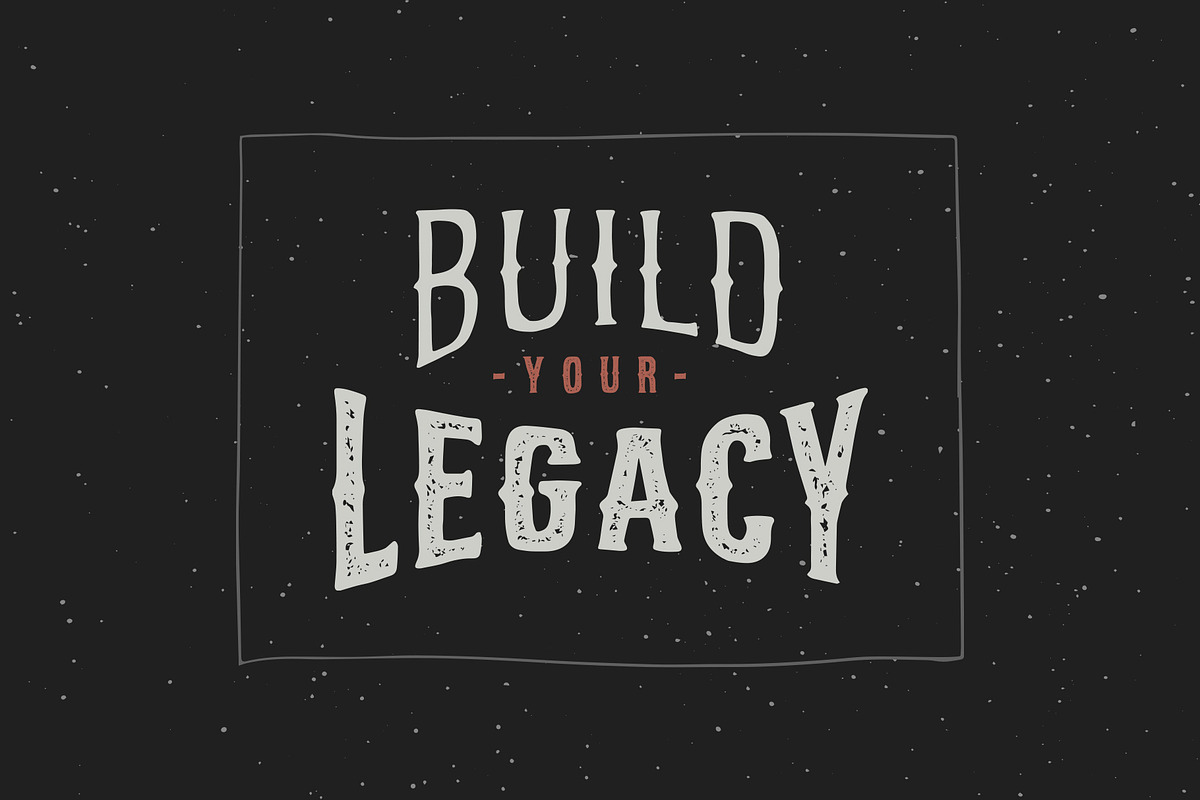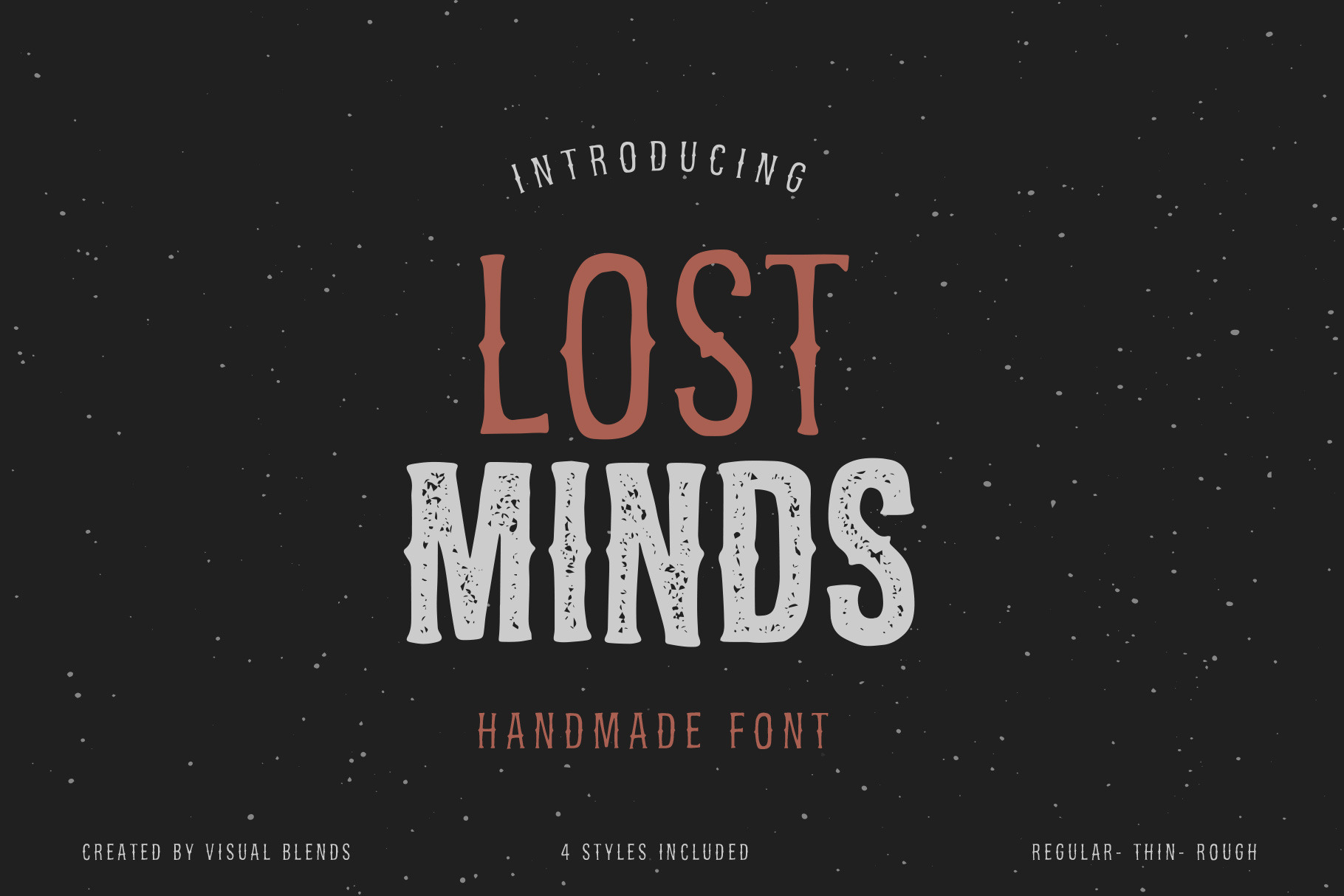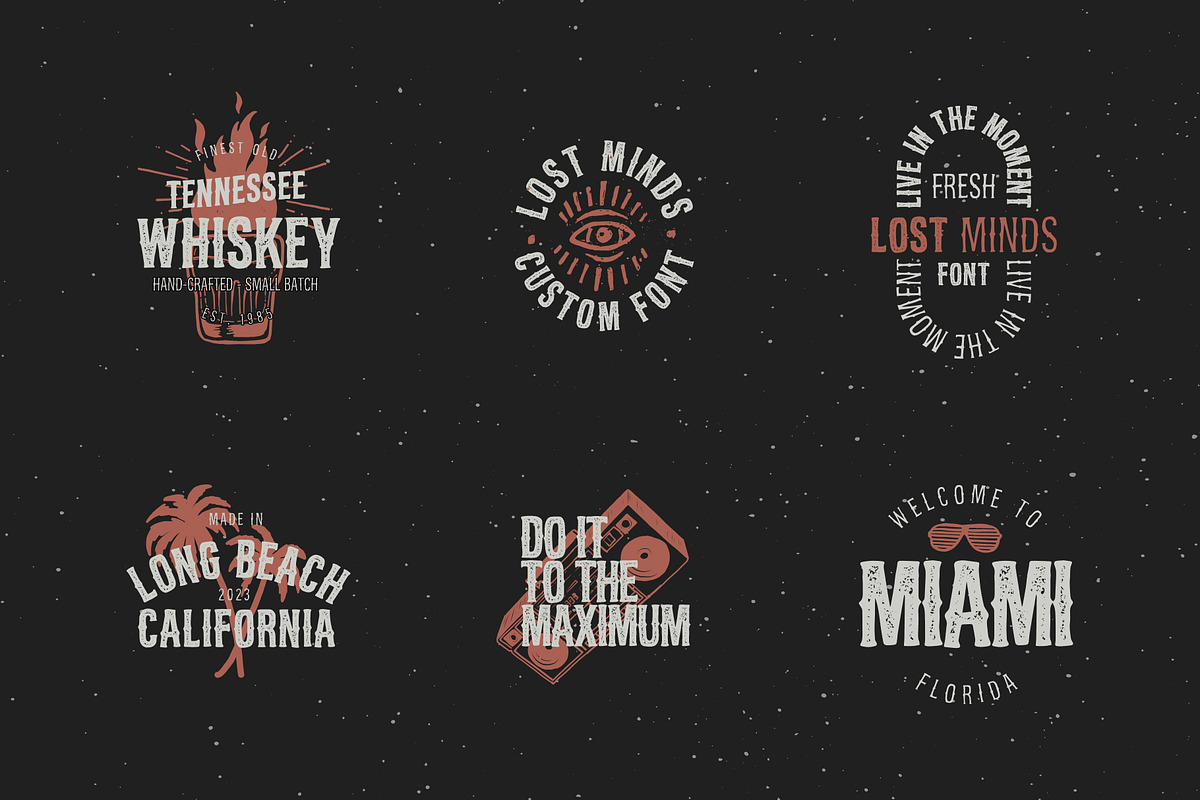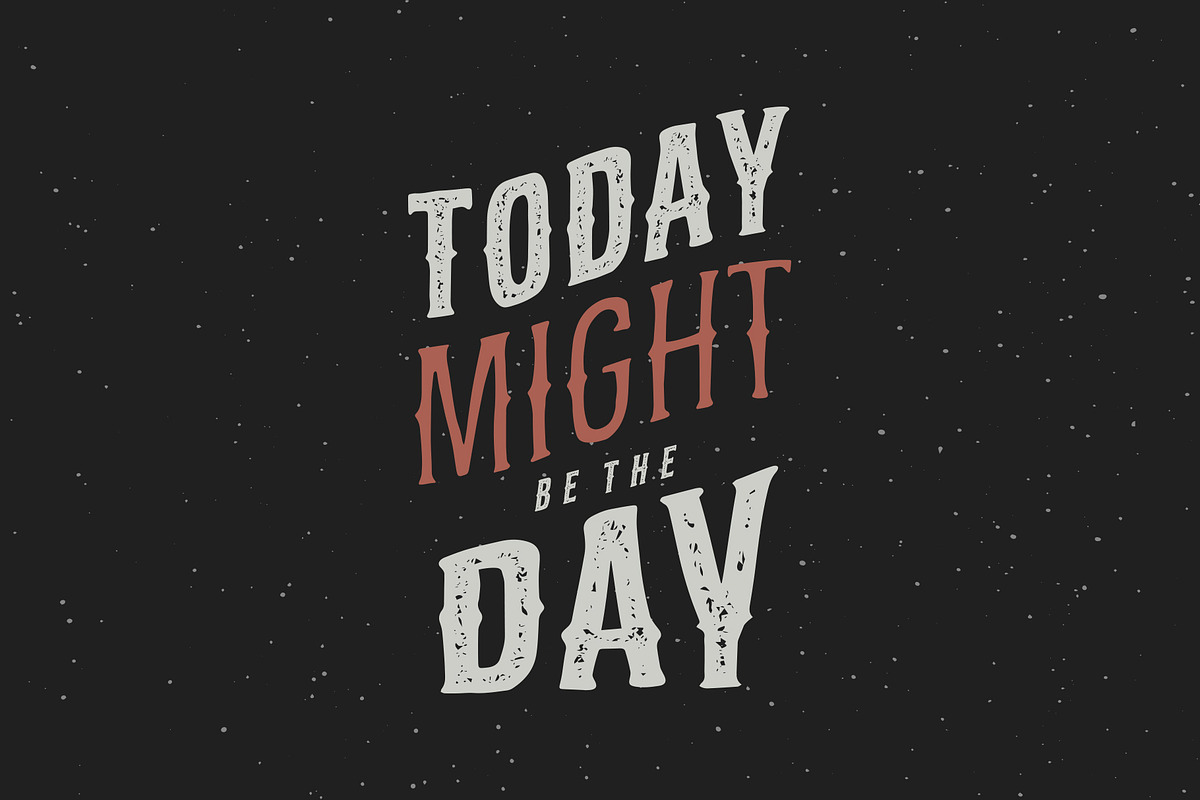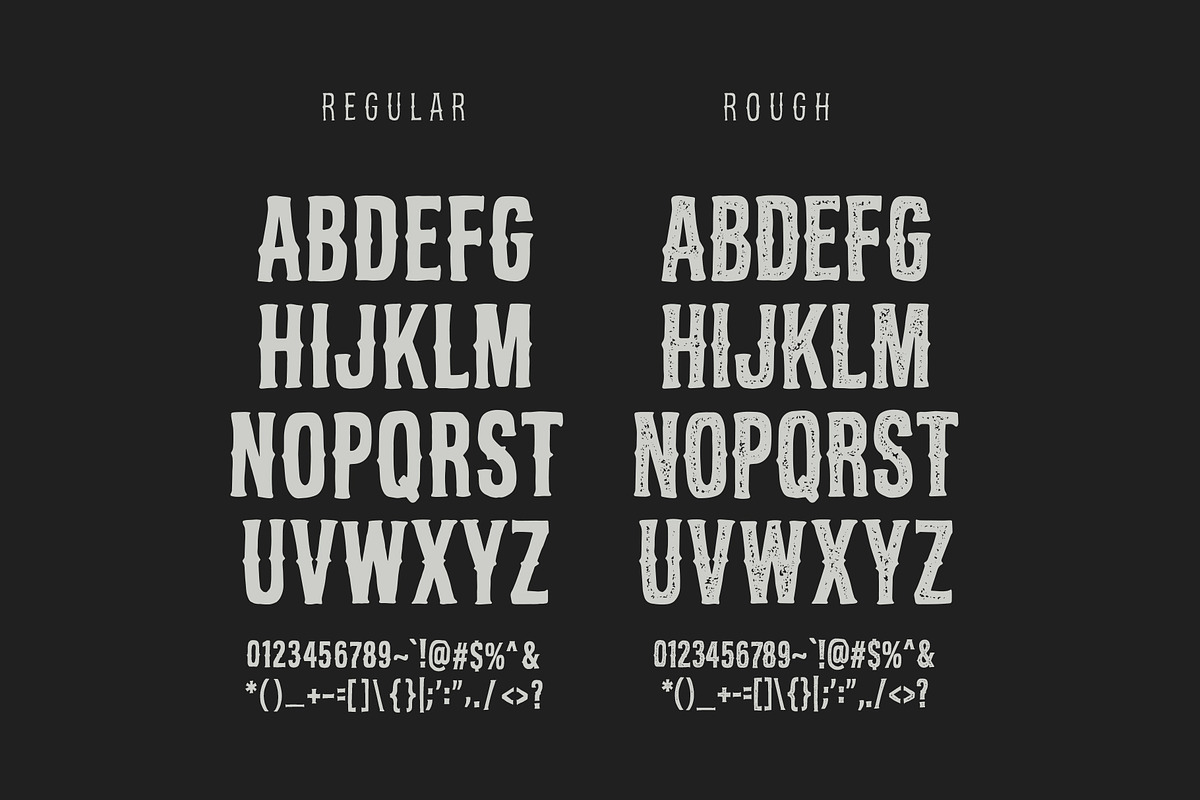
Lost Minds- A Handcrafted Font
Lost Minds– An edgy handcrafted serif display font. Lost Minds was created for the makers. Perfect for designs that have a handmade look. This font includes 2 weights and 2 styles (Thin, Thin-Rough, Regular & Regular-Rough)
1) Lost Minds - Regular / All Caps. Solid filled handmade font.
2) Lost Minds - Regular Rough / All Caps. A rough handmade font.
3) Lost Minds - Thin / All Caps. Solid filled handmade thin font.
4) Lost Minds - Thin Rough / All Caps. A rough filled handmade thin font.
Lost Minds is perfect for designs with a handcrafted and gritty aesthetic. Lost Minds is great for Branding projects, Packaging, apparel and more! Utilize warping tools and wavy baselines to complete the handmade look. Thank you for taking the time to view my shop!